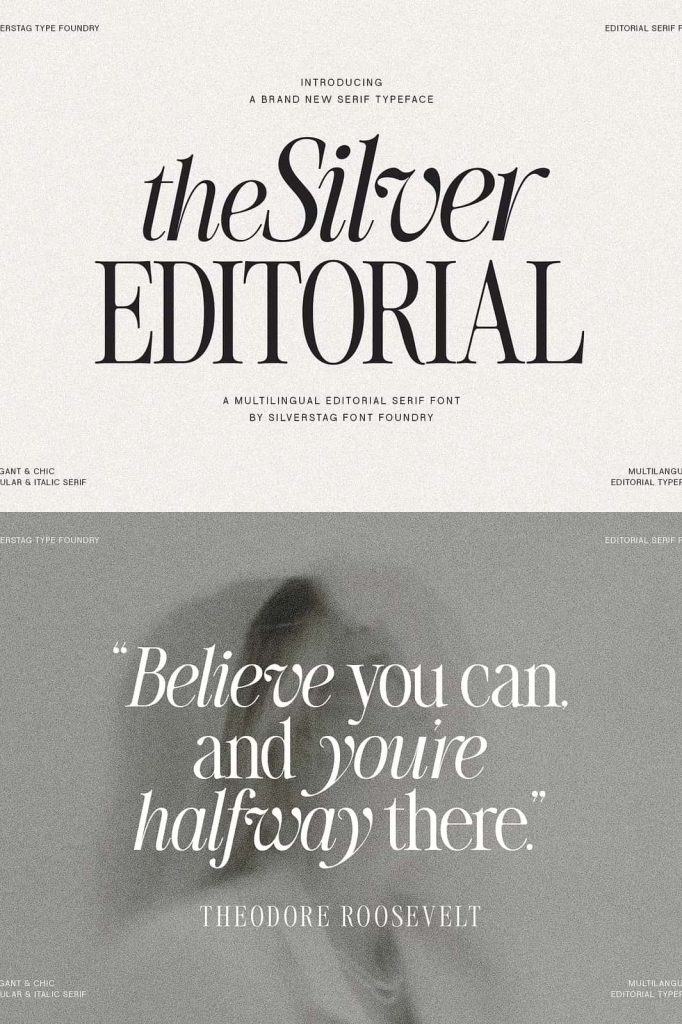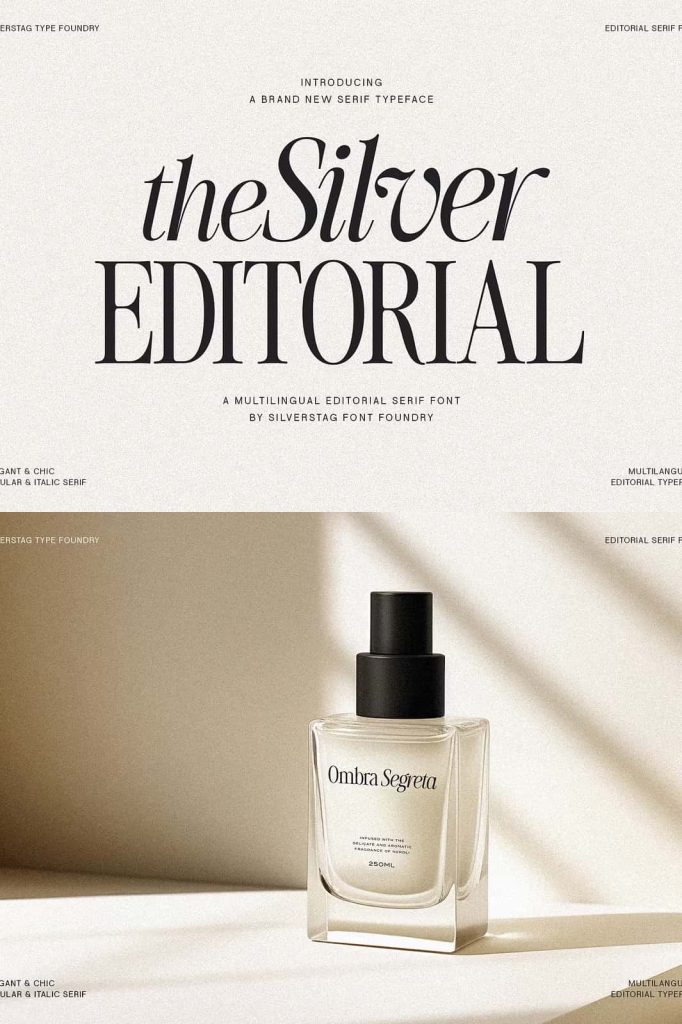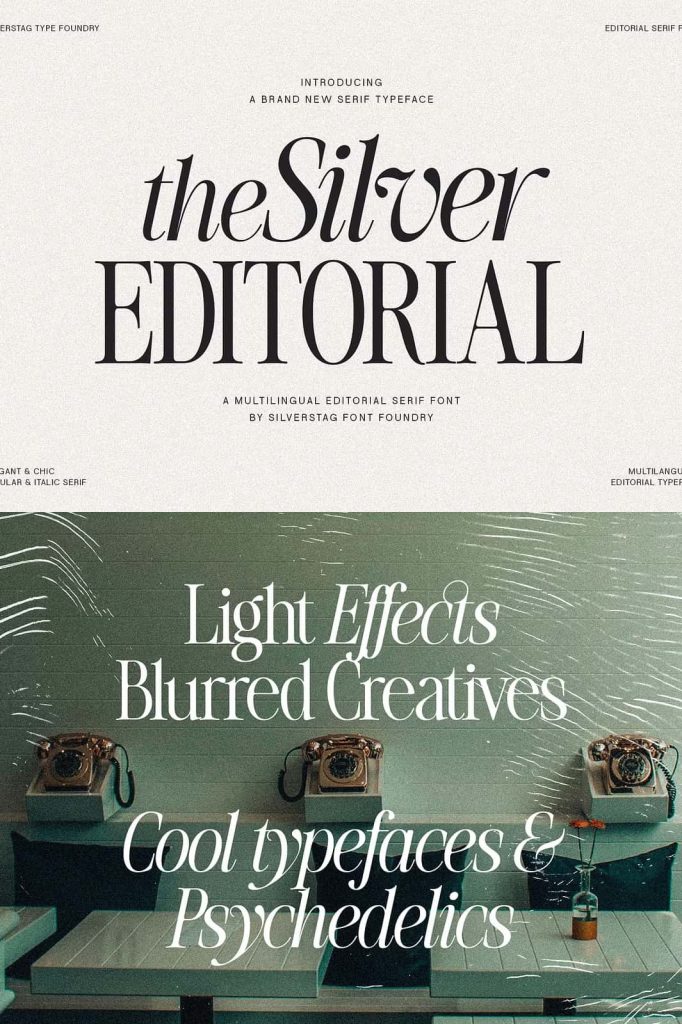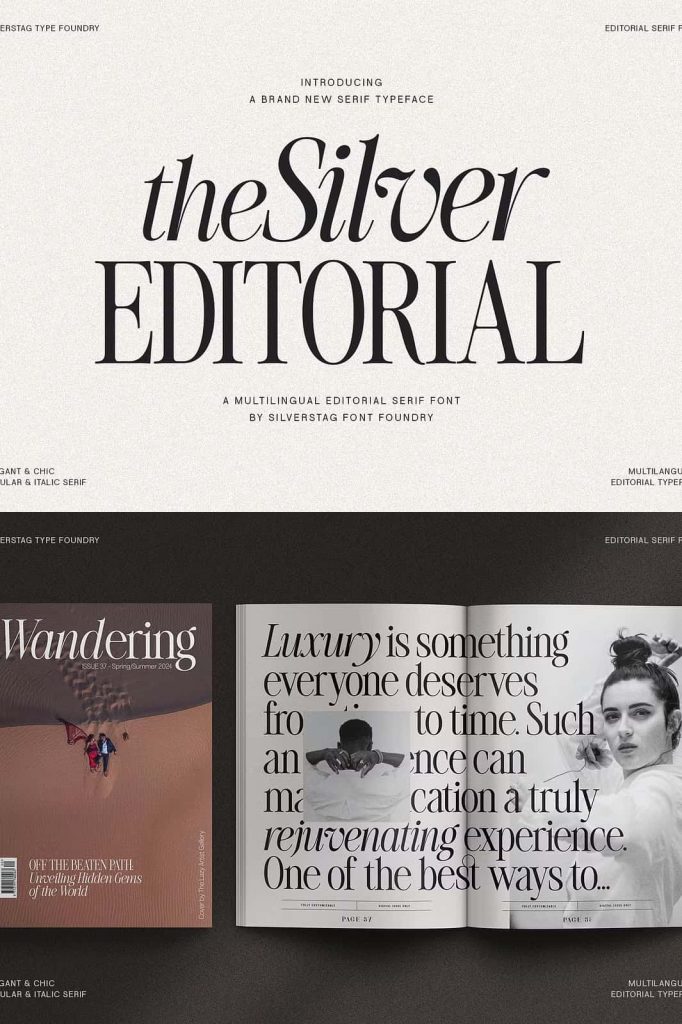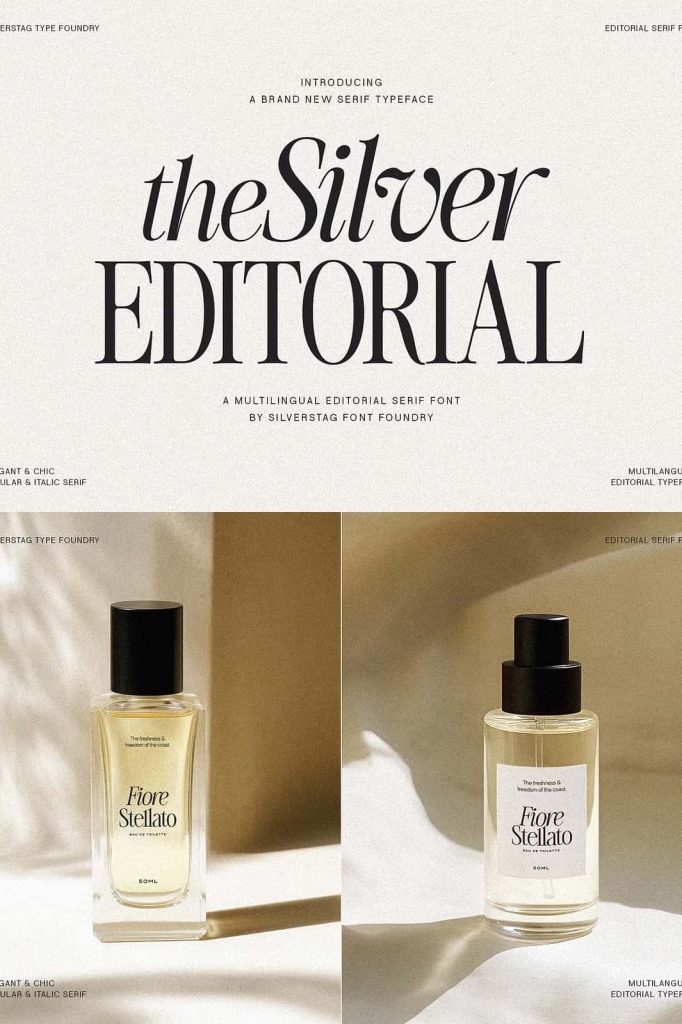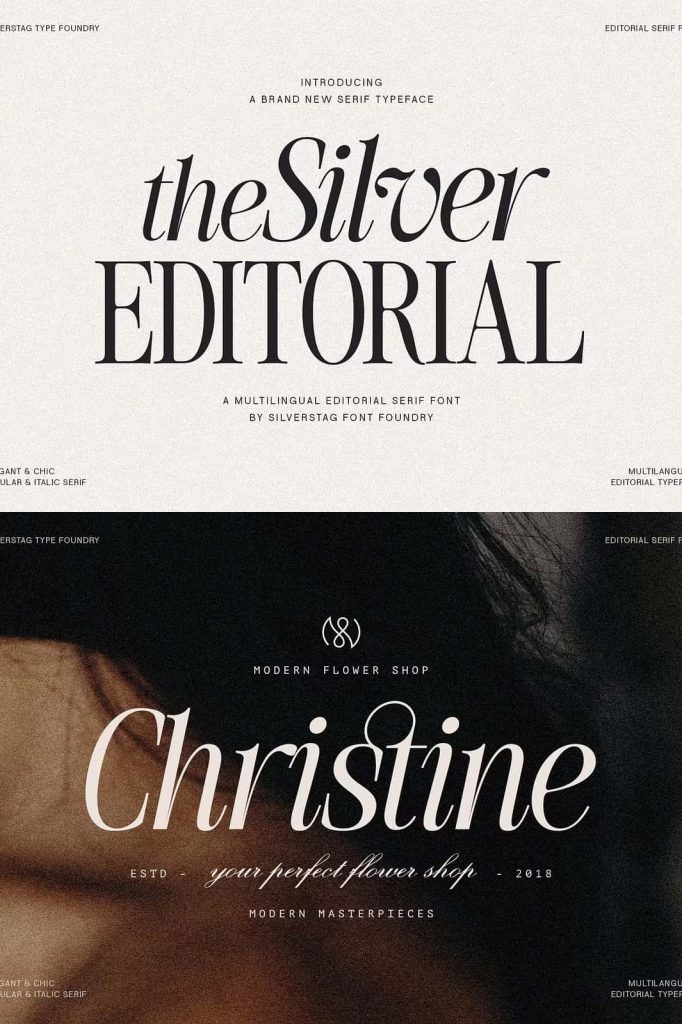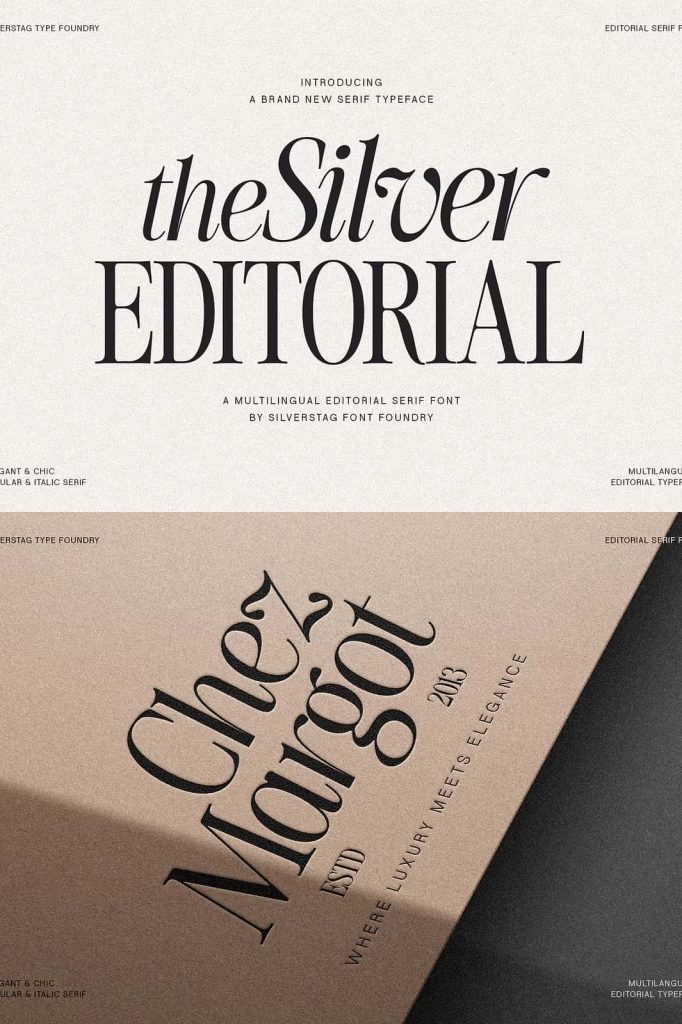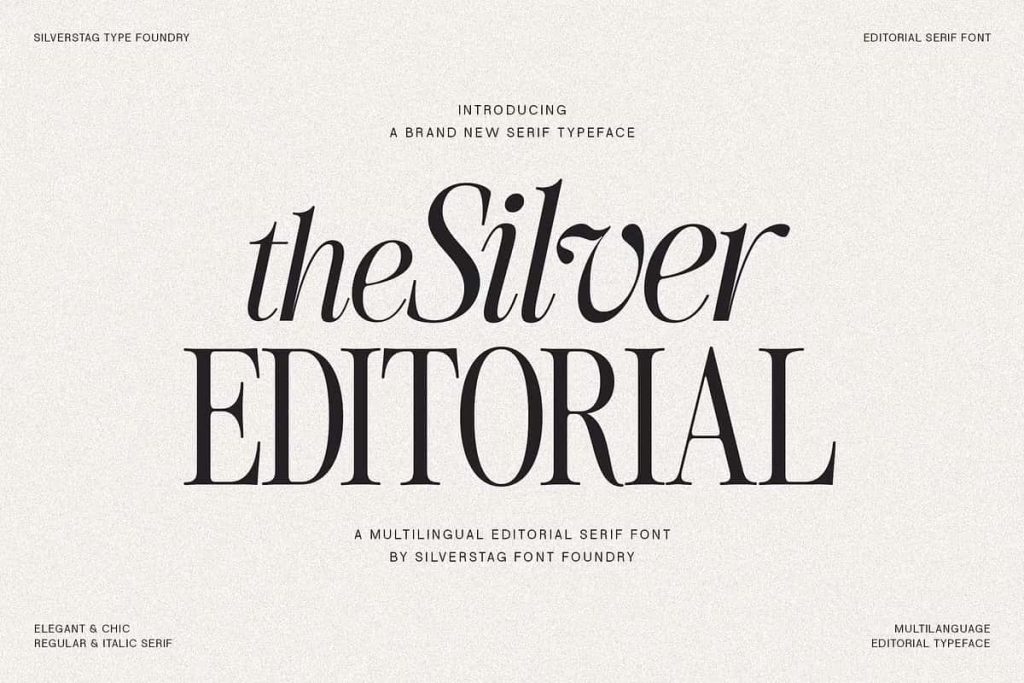
The Silver Editorial Serif Font
The Silver Editorial Serif Font: A Modern Take on Classic 1980s Typography
The Silver Editorial Serif Font represents a refined balance between tradition and innovation. Designed with a deep appreciation for classic typography, this typeface draws inspiration from the iconic editorial serifs of the 1980s while introducing a fresh, modern perspective. It allows designers to create work that feels both familiar and distinctive, combining timeless structure with contemporary energy.
As a result, The Silver Editorial stands out as a versatile and expressive font that adapts effortlessly to a wide range of creative projects. Whether you are designing editorial layouts, branding systems, or digital content, this typeface provides the tools to communicate with clarity, sophistication, and style.
A Balance Between Familiar and Unexpected
The Silver Editorial achieves a unique design balance by blending recognizable serif characteristics with subtle modern refinements. It respects the traditions of classic typography while introducing unexpected details that elevate its visual impact.
This combination allows designers to create compositions that feel grounded yet innovative. Instead of relying solely on nostalgia, the font transforms classic influences into something new and engaging.
Inspired by Iconic 1980s Editorial Design
The 1980s marked a significant era in editorial typography, characterized by bold layouts, structured letterforms, and strong visual hierarchy. The Silver Editorial captures these defining qualities and reinterprets them for modern use.
Its design reflects the elegance and authority of traditional print media while adapting to the needs of contemporary design. This makes it particularly effective for projects that aim to evoke a sense of credibility and sophistication.
Refined Serif Details for Modern Use
The Silver Editorial features carefully crafted letterforms that emphasize both beauty and functionality. Each character has been designed to ensure readability while maintaining a distinctive personality.
Elegant Proportions for Visual Harmony
The font uses balanced proportions to create a harmonious appearance across different text sizes. This ensures that it performs well in both headlines and body text, providing flexibility for designers.
Subtle Contrast for Clarity
The controlled contrast between thick and thin strokes enhances readability without sacrificing style. This approach allows the font to maintain a clean and modern look while preserving its classic roots.
Distinctive Details for Character
Small design nuances give The Silver Editorial its unique identity. These details add depth and interest, helping designs stand out while remaining cohesive and professional.
Perfect for Editorial and Branding Projects
The Silver Editorial excels in applications that require a strong typographic presence. Its refined style and versatility make it suitable for a wide range of creative uses.
• Magazine layouts and editorial design
• Branding and logo development
• Luxury packaging and product design
• Website typography and digital interfaces
• Marketing materials and promotional content
Designers can use this typeface to create polished and engaging visuals that communicate professionalism and creativity.
Versatility Across Print and Digital Media
The Silver Editorial performs consistently across different mediums. Its structure ensures clarity in print, while its refined details translate beautifully to digital screens. This adaptability makes it a reliable choice for designers working on multi-platform projects.
By adjusting scale, spacing, and layout, you can create a wide range of visual styles—from bold and dramatic to subtle and elegant. This flexibility allows the font to adapt to different creative directions without losing its identity.
Designed for Creative Exploration
The Silver Editorial encourages designers to experiment with typography while maintaining a strong foundation. Its balanced design allows you to push creative boundaries without compromising readability or structure.
Pair it with modern sans-serif fonts to create contrast, or use it as a standalone typeface for a cohesive editorial look. Its adaptability makes it suitable for both minimalist and highly detailed compositions.
Why Choose The Silver Editorial Serif Font?
Designers choose The Silver Editorial because it offers a unique combination of classic inspiration and modern performance. It delivers both aesthetic appeal and practical functionality.
• Inspired by iconic 1980s editorial typography
• Balanced design with modern refinements
• Excellent readability across different sizes
• Versatile for both print and digital use
• Strong visual identity for branding and editorial work
This combination ensures that your designs remain timeless, professional, and visually engaging.
Conclusion
The Silver Editorial Serif Font successfully bridges the gap between past and present. It captures the essence of classic 1980s typography while introducing a modern spirit that meets today’s design standards. With its refined details, versatile performance, and distinctive character, this typeface empowers designers to create impactful and memorable work across a wide range of applications.